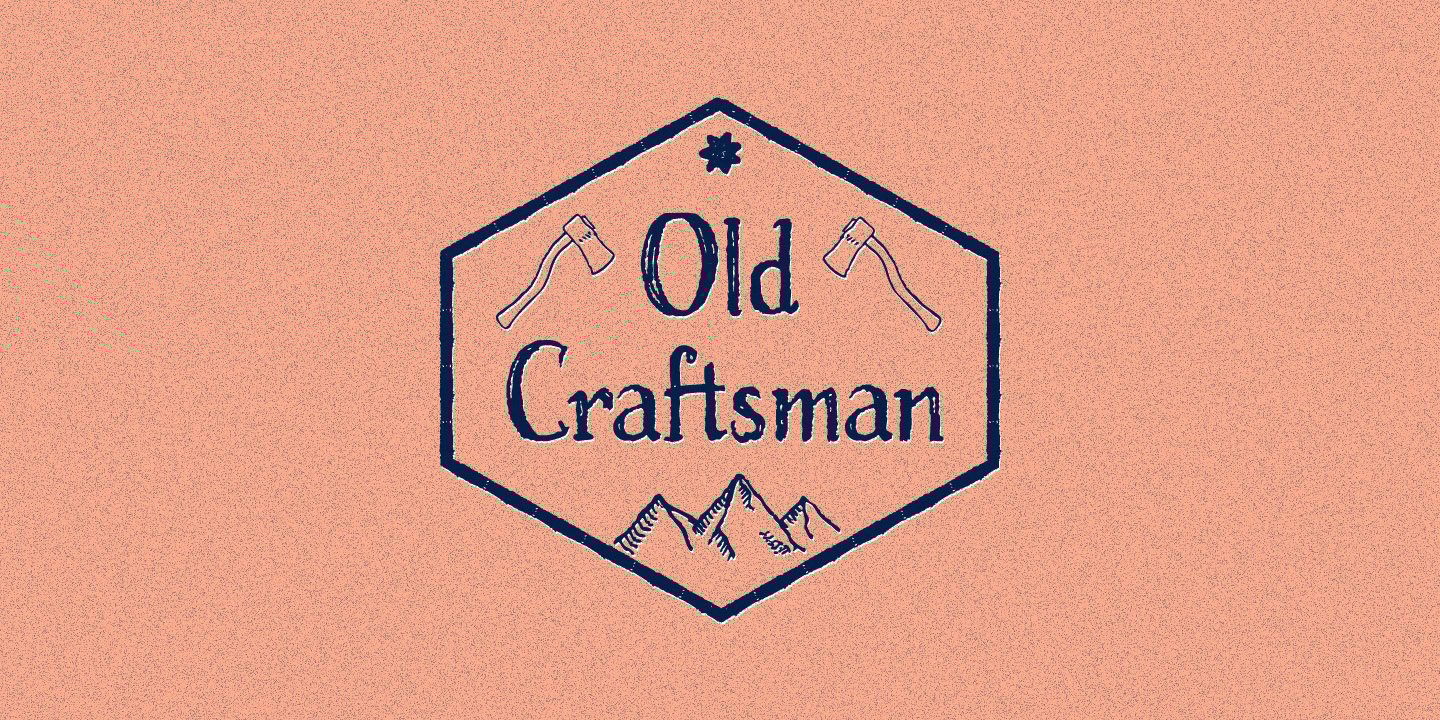
The Old Craftsman Font is excellent for artisan workshops, traditional woodworking studios, handcrafted furniture makers, vintage tool manufacturers, heritage craft guilds, blacksmith forge signage, antique restoration services, and authentic handmade product branding. This masterful typeface works wonderfully in applications where skilled craftsmanship and traditional artistry need to be emphasized, making it perfect for artisan businesses that want to communicate time-honored expertise and handcrafted quality through weathered, workshop-inspired typography.
What makes Old Craftsman Font exciting is its seasoned expertise and artisanal mastery that captures the essence of traditional craftsmanship and skilled handiwork. The font's weathered letterforms and workshop-inspired character design create an atmosphere of generational knowledge and authentic artistry, making it ideal for brands that want to honor traditional craft techniques and communicate the value of experienced craftsmanship. Its masterful presence ensures that every application feels shaped by skilled hands with genuine artisan credibility and traditional excellence.
The Old Craftsman Font family typically includes regular, distressed, and bold weights, often featuring workshop tools, artisan symbols, and craft guild motifs that enhance its traditional appeal. Many versions include hammer and chisel decorations, wood grain textures, and specialized characters that provide designers with comprehensive tools for creating authentic craftsman design projects with genuine artisanal sophistication and traditional excellence.
For designers working on projects that require artisan authenticity and craftsman credibility, Old Craftsman Font Free Download provides exceptional traditional appeal. Its ability to instantly communicate skill and handcrafted quality makes it an invaluable choice for artisan brands, traditional workshops, and any project requiring typography that embodies the wisdom of experienced craftsmanship, the beauty of handmade artistry, and the respected tradition of skilled artisan work and masterful handiwork.